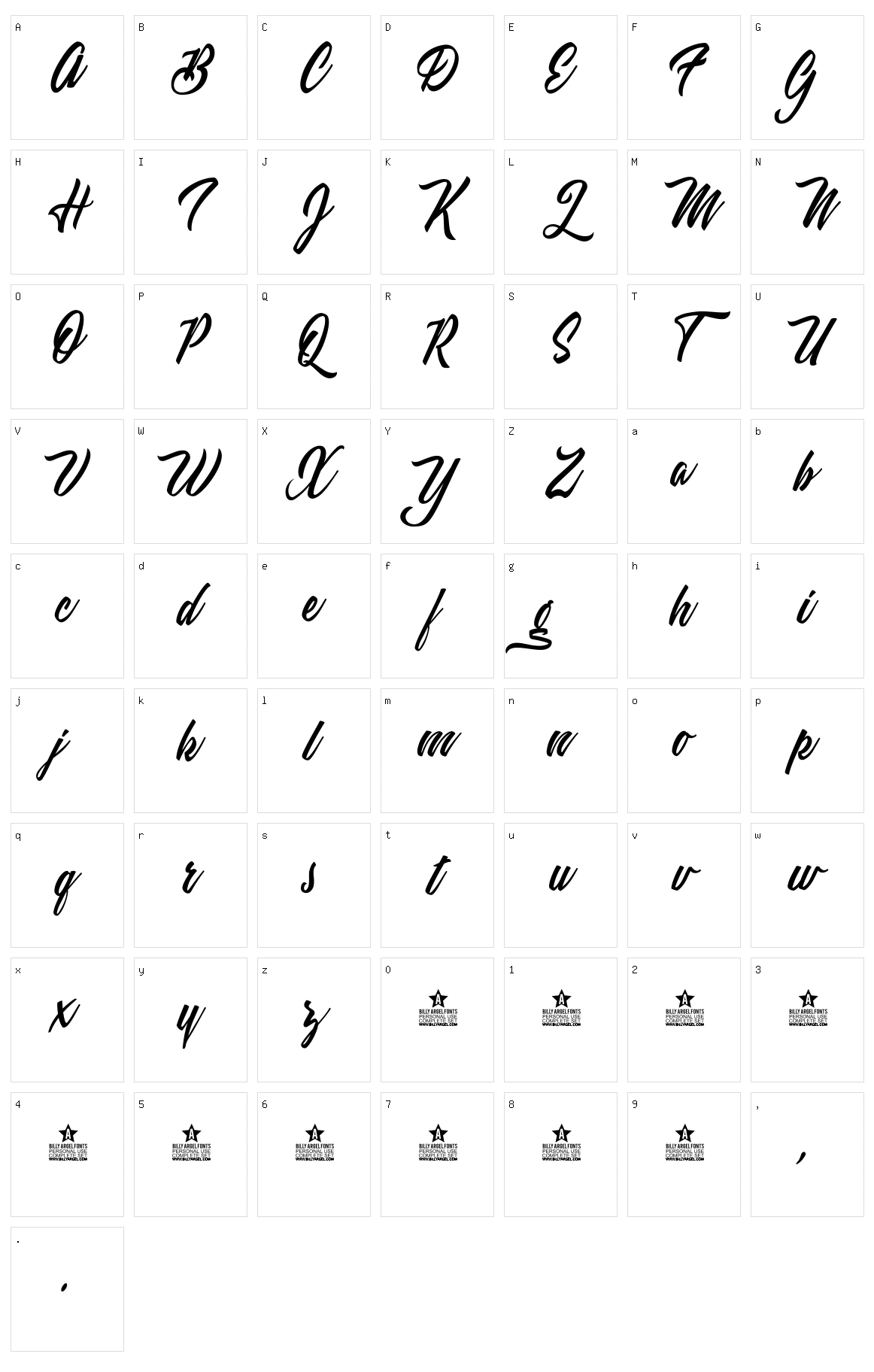
The free font Weekend Flower Hunters is carefully designed by Billy Argel Fonts ?, showcasing a thoughtful balance of creativity and usability and falls under the Script font style. When you download the ZIP file, it contains only 223.53 KB of font files, making it lightweight and quick to download. Please review the license details below to understand permitted usage and distribution rights. If license information is not available, we recommend using this font for personal projects only or contacting the author directly for commercial usage permissions.